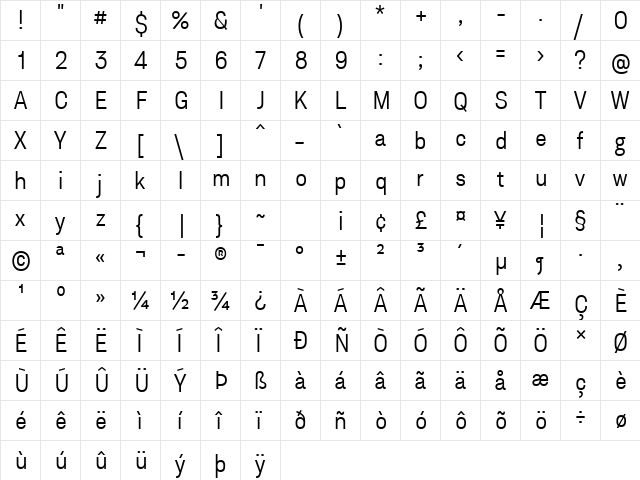
Asket Narrow Light
Design Context for Asket Narrow Typeface
Asket Narrow is a composed and adaptable typeface that performs quietly and consistently across a wide range of design contexts. The delicate stroke weight brings airiness and refinement to layouts. The condensed width makes it efficient for tight spaces without sacrificing legibility.
Pro Tip: Use Asket Narrow in both headline and body roles to test its range before committing to a single application.